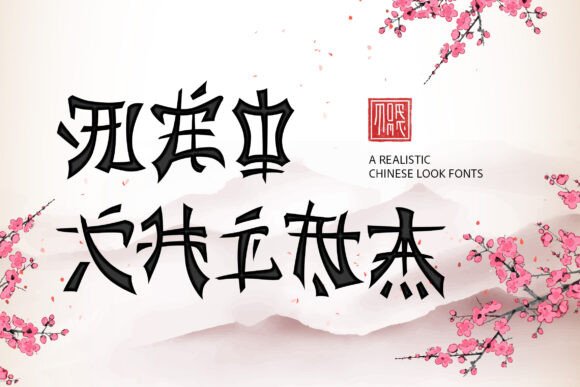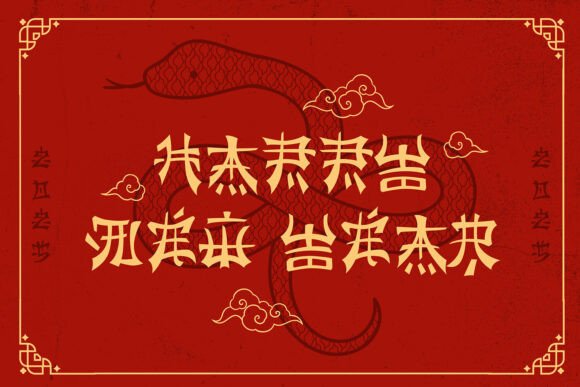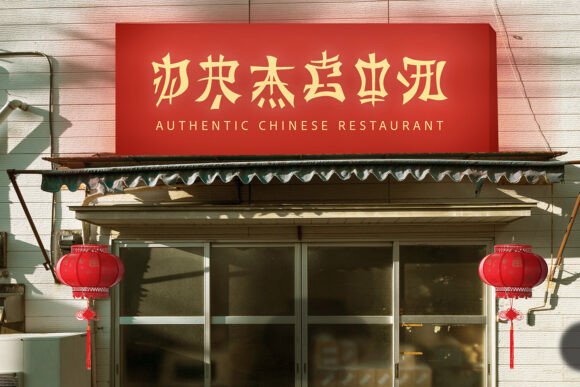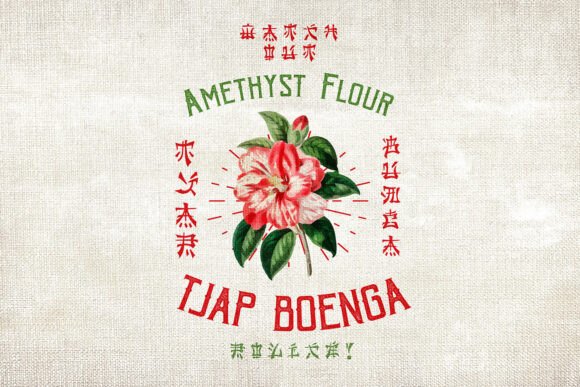
Neo China Font
About the Neo China Font
Make a bold statement with Neo China Font, a powerful and memorable font. This realistic Chinese-inspired font brings a harmonious blend of traditional calligraphic elements and modern design. With its intricate strokes and authentic aesthetic, it’s perfect for creating cultural designs, branding, packaging, event invitations, and posters. The font captures the elegance and artistry of Chinese characters, making it ideal for projects that need a sophisticated, Eastern-inspired touch.
Neo China Font excels in headlines, logos, and short-form text applications such as posters and packaging where its elegant strokes create a strong visual impact. It’s less suitable for body text or lengthy paragraphs due to its intricate detail, which can reduce readability at smaller sizes. Avoid using it in UI design or applications requiring high levels of screen legibility.
The font’s core personality is sophisticated and elegant, conveying a sense of refined artistry and cultural heritage. Brands aiming for a premium, heritage-inspired feel, or those associated with Eastern culture, will find it particularly effective.
For optimal pairings, consider complementing Neo China Font with a clean sans-serif like Helvetica Neue for a modern contrast, or a warmer serif typeface such as Garamond for a more traditional feel. A minimalist geometric sans-serif would also create a balanced and contemporary look.
Neo China Font Usage Examples
Neo China Font Example